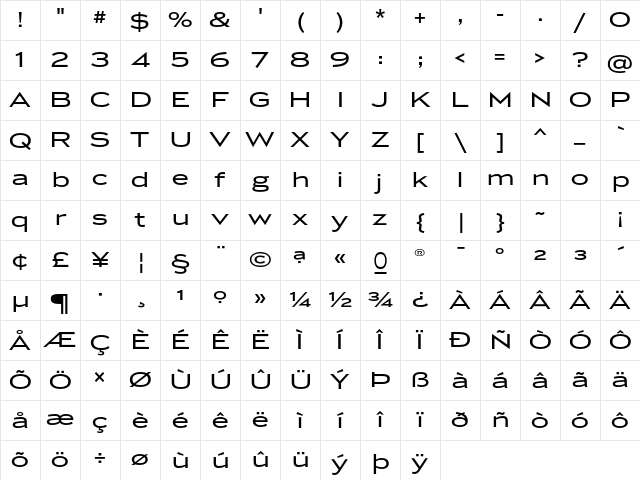
Complete Luxury Gold glyph index. Displaying only characters natively supported by Luxury Gold font.
Luxury is a composed and adaptable typeface that performs quietly and consistently across a wide range of design contexts.